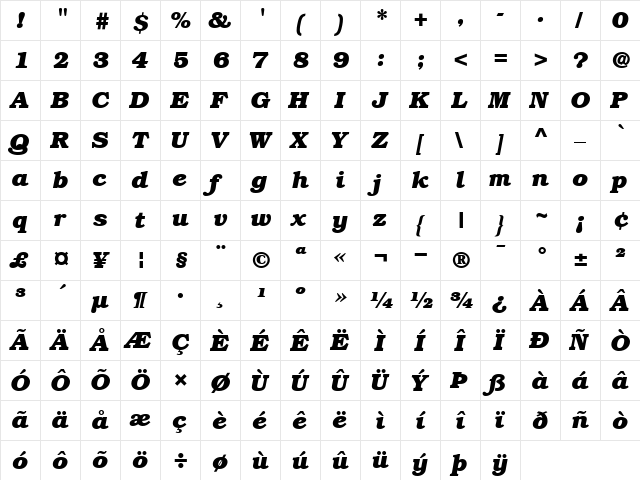
ITCmanBold-Book BookItalic Font Preview
ITCmanBold-Book BookItalic
ITCmanBold-Book BookItalic Font Details
Design Context for ITCmanBold-Book Typeface
ITCmanBold-Book offers clean, dependable letterforms without strong stylistic allegiance, making it a practical choice for designers who need flexibility. Its italic angle brings a sense of urgency and motion to the letterforms. The heavy weight commands attention and anchors typographic hierarchies.
Pro Tip: Use ITCmanBold-Book for emphasis, pull quotes, and subheadings where its slanted energy can add rhythm to the layout.